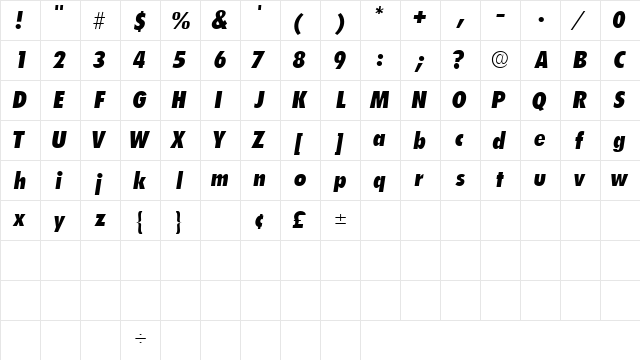
IsomarSSK Italic
Design Context for IsomarSSK Typeface
IsomarSSK is a composed and adaptable typeface that performs quietly and consistently across a wide range of design contexts. The dynamic lean of this cut emphasises speed and emphasis in any layout.
Pro Tip: Try IsomarSSK for annotation and caption copy alongside an upright companion — the contrast in angle creates a dynamic but ordered typographic system.